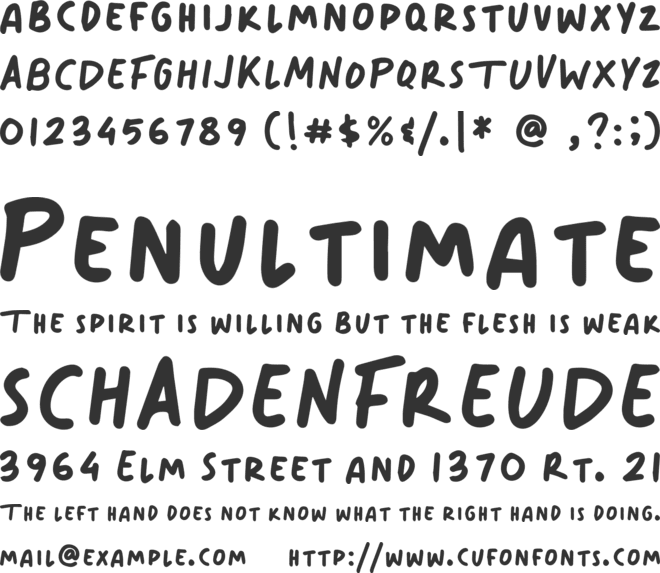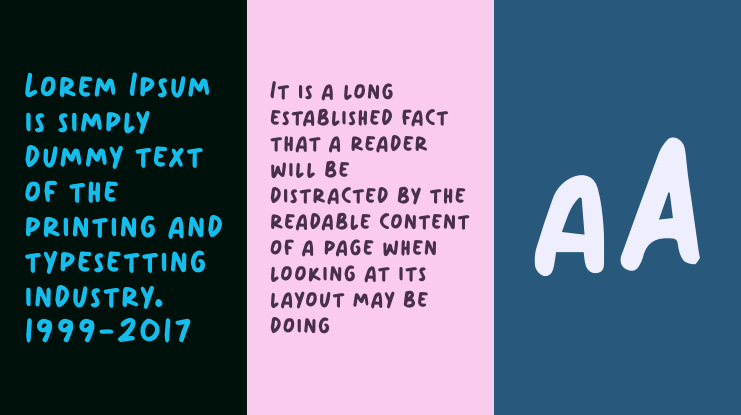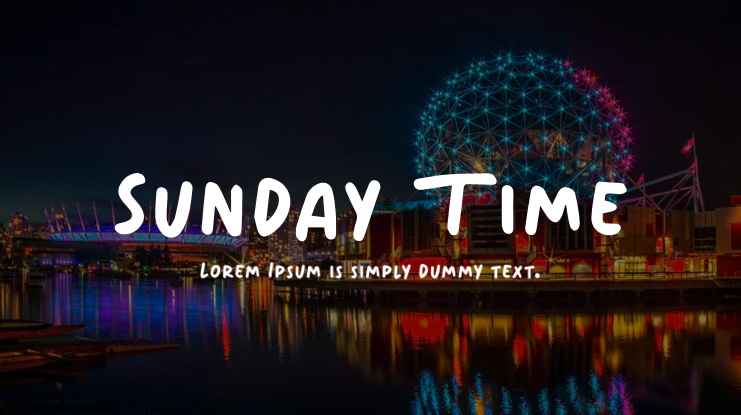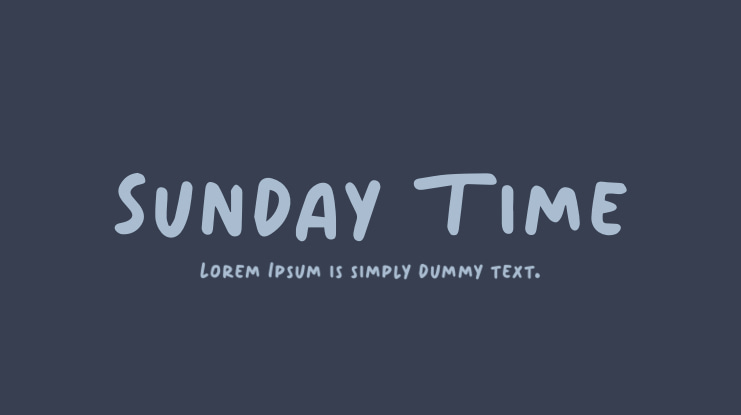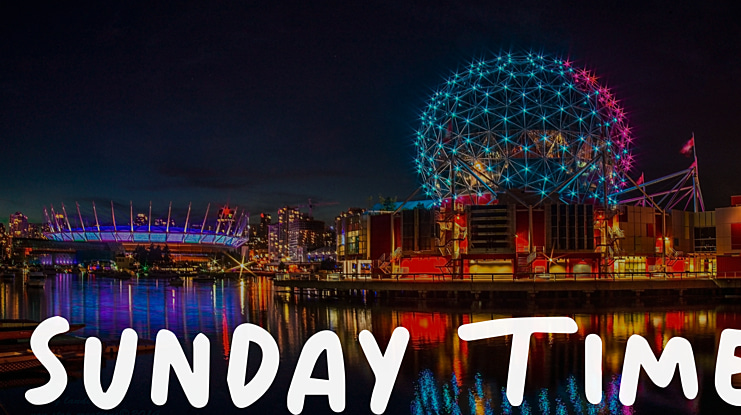
Sunday Time Font
Pleased to introduce you to Sunday Time Handwritten Font!.
Sunday Time Hand written font is a mixture of creative and simple.
This is a cute handwritten font would be perfect for Comic, books, greeting cards, toys, posters, clothing, picture books or anything that requires a fun and happiness look!